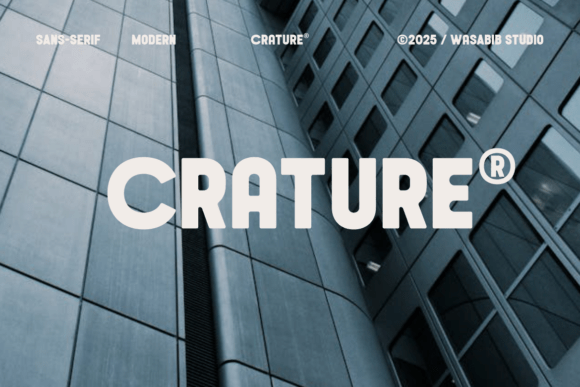
Crature Font: A Modern Sans-Serif Font for Sophisticated Designs
In the world of typography, fonts play a crucial role in conveying the message and aesthetic of a design project. With the numerous font options available, finding the perfect one that combines style, versatility, and modernity can be challenging. However, if you’re looking for a font that embodies these qualities, Crature Font is an excellent choice. This modern sans-serif font has gained popularity for its clean and minimalist design, making it suitable for a wide range of design projects.
What is Crature Font?
Crature Font is a contemporary sans-serif font designed with straight, simple lines and a sleek appearance. Its clean and minimalist design makes it an ideal choice for designers seeking a modern and sophisticated aesthetic in their typography. The font’s versatility allows it to be used for various purposes, including branding, editorial design, web design, and more.
Key Features of Crature Font
- Clean and Minimalist Design: Crature Font boasts a clean and minimalist design, making it perfect for designs that require a simple yet elegant look.
- Stylistic Alternates: One of the standout features of Crature Font is its inclusion of stylistic alternates. This feature provides designers with more creative freedom to experiment and achieve their desired look.
- Modern and Sophisticated Aesthetic: The font’s sleek and elegant appearance makes it an excellent choice for those seeking a modern and sophisticated aesthetic in their typography.
- Versatility: Crature Font’s versatility allows it to be used for various design projects, including branding, editorial design, web design, and more.
Uses of Crature Font
Crature Font’s versatility makes it suitable for a wide range of design projects. Here are some of the ways you can use this font:
- Branding: Crature Font is an excellent choice for branding projects, such as logos, business cards, and letterheads. Its clean and minimalist design makes it perfect for creating a professional and modern brand image.
- Editorial Design: The font’s elegant appearance makes it suitable for editorial design projects, such as magazines, newspapers, and books. Its readability and clean lines ensure that your content is presented in a clear and concise manner.
- Web Design: Crature Font is also suitable for web design projects, such as website headers, paragraphs, and UI elements. Its modern and sophisticated aesthetic ensures that your website looks sleek and professional.
Benefits of Using Crature Font
Using Crature Font in your design projects offers several benefits, including:
- Improved Readability: The font’s clean and minimalist design ensures that your content is presented in a clear and concise manner, improving readability.
- Increased Versatility: Crature Font’s versatility allows it to be used for various design projects, making it a valuable addition to your font library.
- Enhanced Creativity: The font’s stylistic alternates feature provides designers with more creative freedom to experiment and achieve their desired look.
- Professional and Modern Aesthetic: Crature Font’s sleek and elegant appearance ensures that your design projects look professional and modern.
Tips for Using Crature Font
Here are some tips for using Crature Font effectively in your design projects:
- Pair it with Other Fonts: Crature Font can be paired with other fonts to create a unique and visually appealing design. Experiment with different font combinations to find the perfect match.
- Use it for Headings and Body Text: Crature Font is suitable for both headings and body text. Use it for headings to create a bold and modern look, and for body text to ensure readability.
- Experiment with Stylistic Alternates: Take advantage of Crature Font’s stylistic alternates feature to add creativity and uniqueness to your design.
In conclusion, Crature Font is a modern sans-serif font that offers a clean and minimalist design with the added feature of stylistic alternates. Its versatility, readability, and sleek appearance make it an excellent choice for a wide range of design projects, including branding, editorial design, web design, and more. With its professional and modern aesthetic, Crature Font is sure to elevate your design projects to the next level.